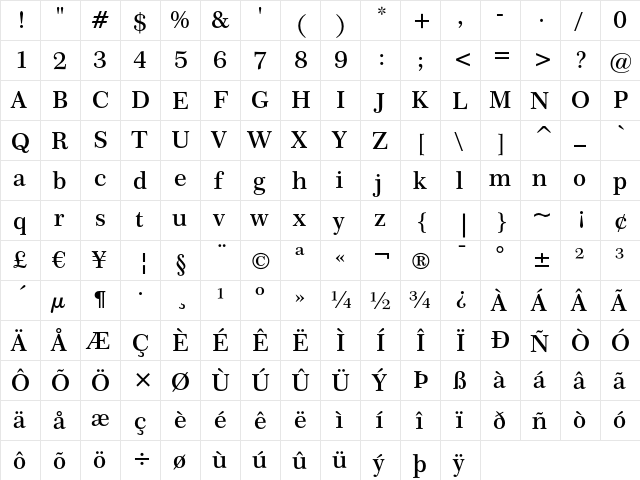
Century 751 Semi Bold
Design Context for Century 751 Typeface
Century 751 offers clean, dependable letterforms without strong stylistic allegiance, making it a practical choice for designers who need flexibility. The heavy weight commands attention and anchors typographic hierarchies.
Pro Tip: Use Century 751 in both headline and body roles to test its range before committing to a single application.